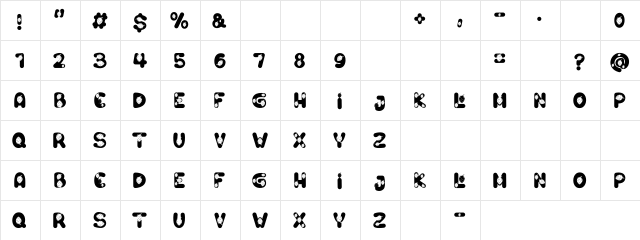
Strawberry Regular
| Designer | Rusdin Hendarsono |
Design Context for Strawberry Typeface
Strawberry is a composed and adaptable typeface that performs quietly and consistently across a wide range of design contexts.